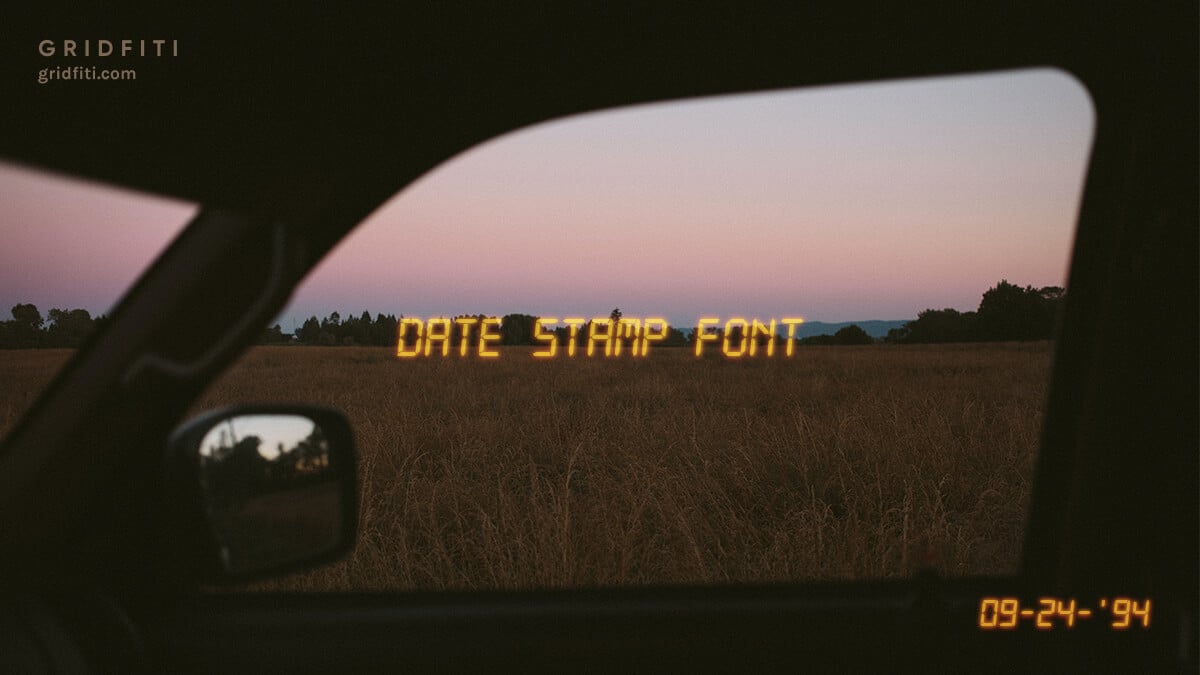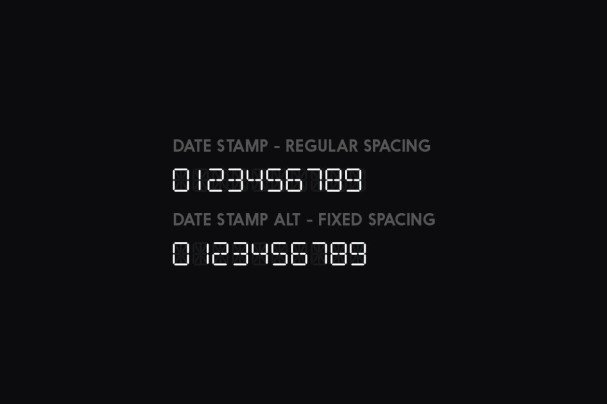
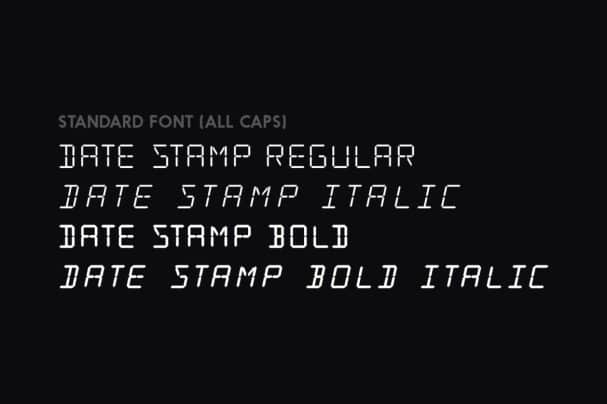
This is a rubber stamp but i don't necessary need that effect (well, if it's available that would be super).
Date stamp font in word. Date stamp is a set of two display font based off of a 14 segment lcd display. Due date font | dafont.com english français español deutsch italiano português. Verdana is a bright, large font that offers maximum readability.
Date stamp is a set of two display font based off of a 14 segment lcd display. 2 matching requests on the forum. That covers the date/stamp question, but now i need to scan in my signature and somehow overlay it onto the new acrobat stamp.
Make your text yellow (we used #f8e757 here) Date stamp font family is designed to mimicking the date imprint on typical movie photographs however can be used in different functions similar to a digital clock app or retro display board. Here’s what we did to achieve the date stamp film photo effect you see below, using photoshop:
Consequently, it has utilized in the sort structure industry for an enormous scope. It is an excellent choice for warnings, deadlines and other important messages you may wish to convey with a custom rubber stamp. The font collection section is the place where you can browse, filter, custom preview and.
Jan 26, 2013 at 04:47. Typewriter condensed suggested by runfaraways. The date stamp is a set of two show font based on a 14 phase lcd display.
I figured out how to create a custom stamp within acrobat using snagit and the stamp font within ms word. In fancy > destroy 181,145 downloads (12 yesterday) 100% free. Does anyone recognize this date stamp font?